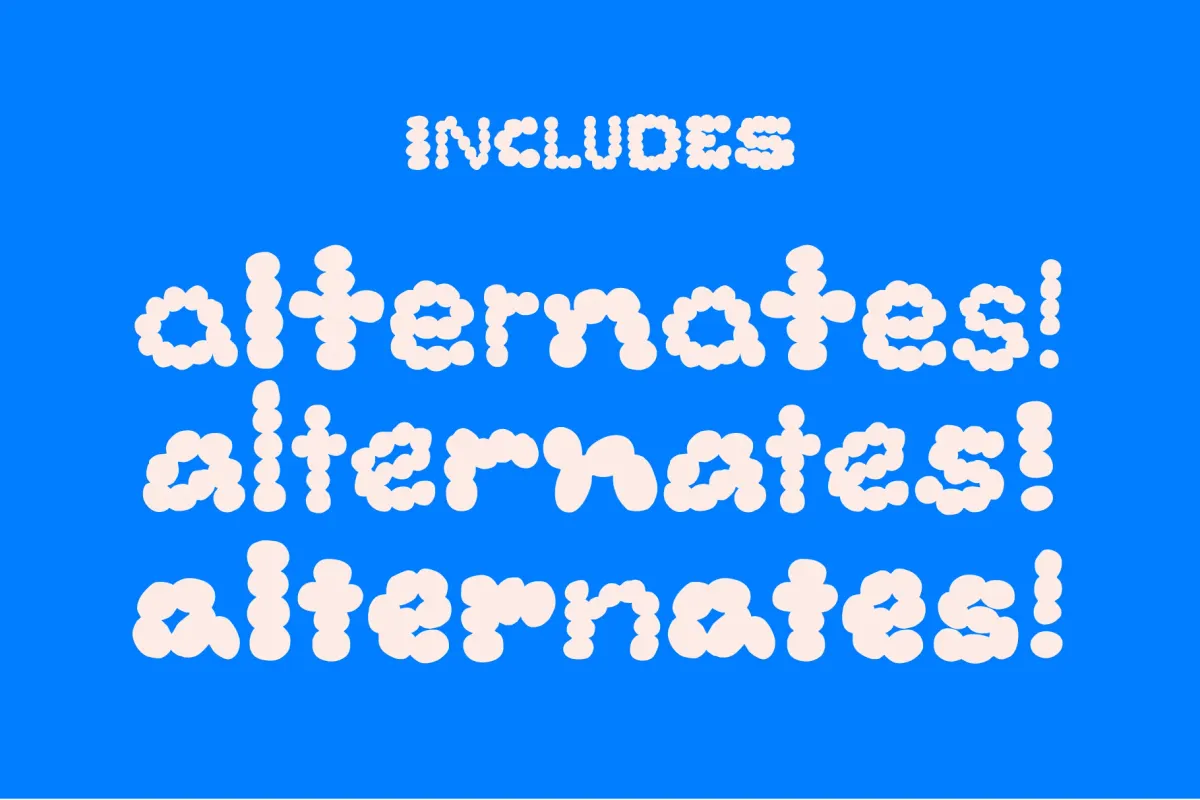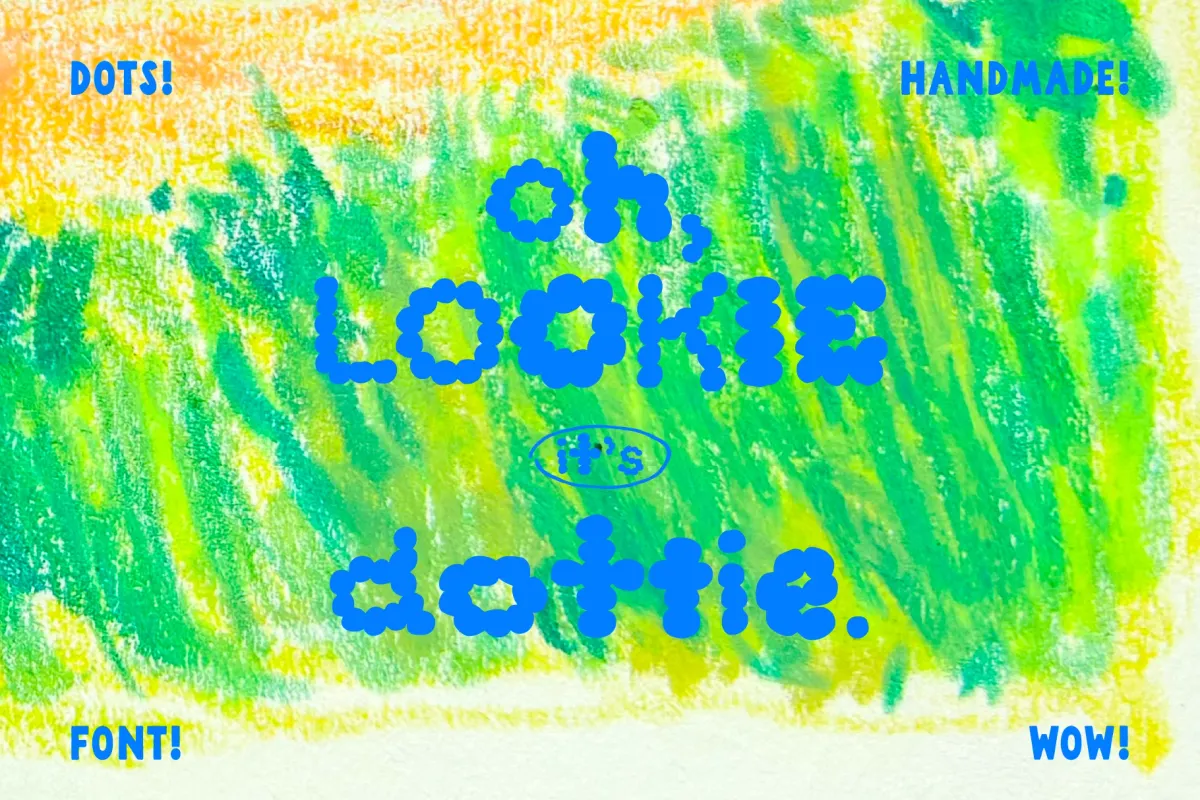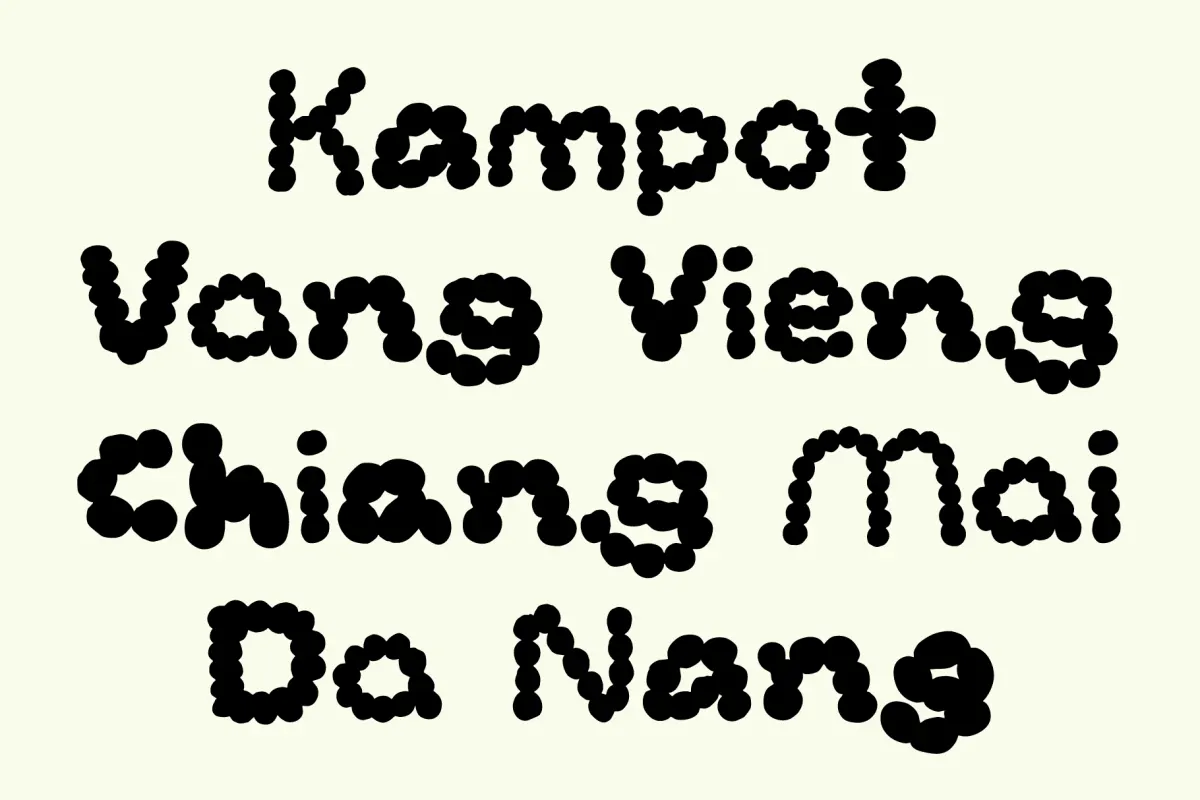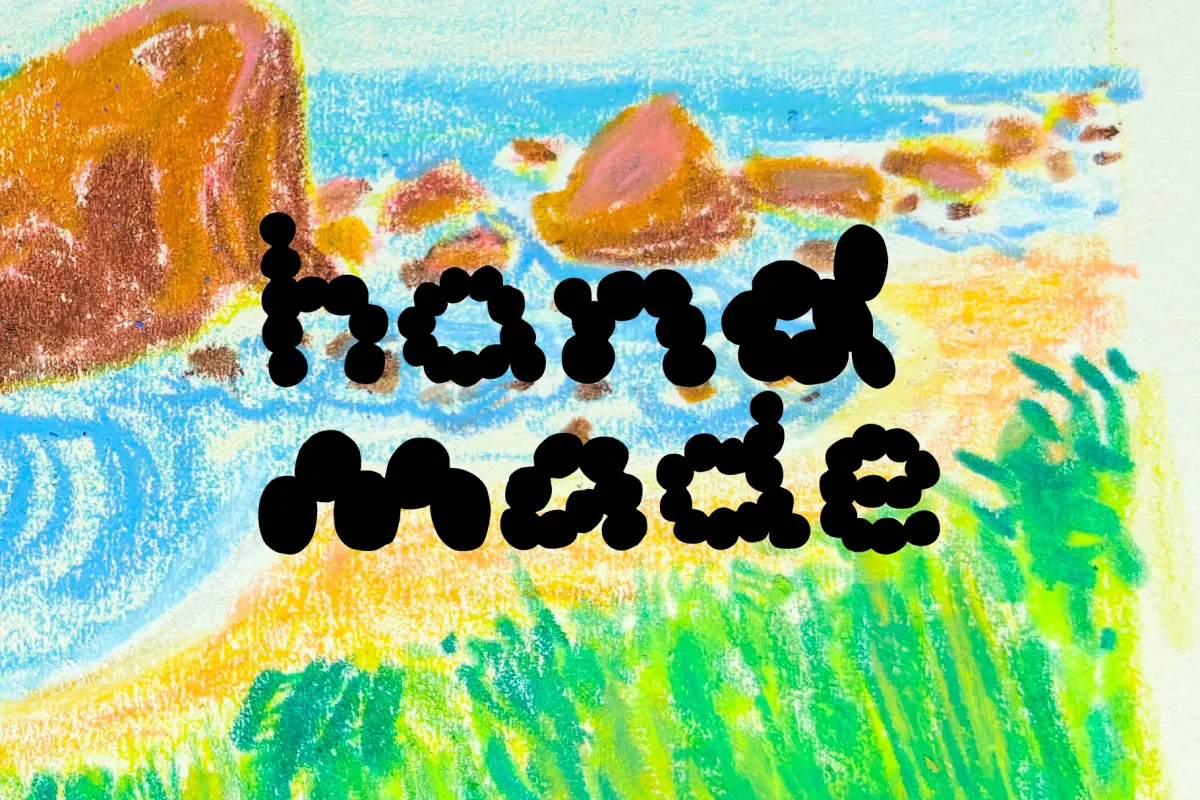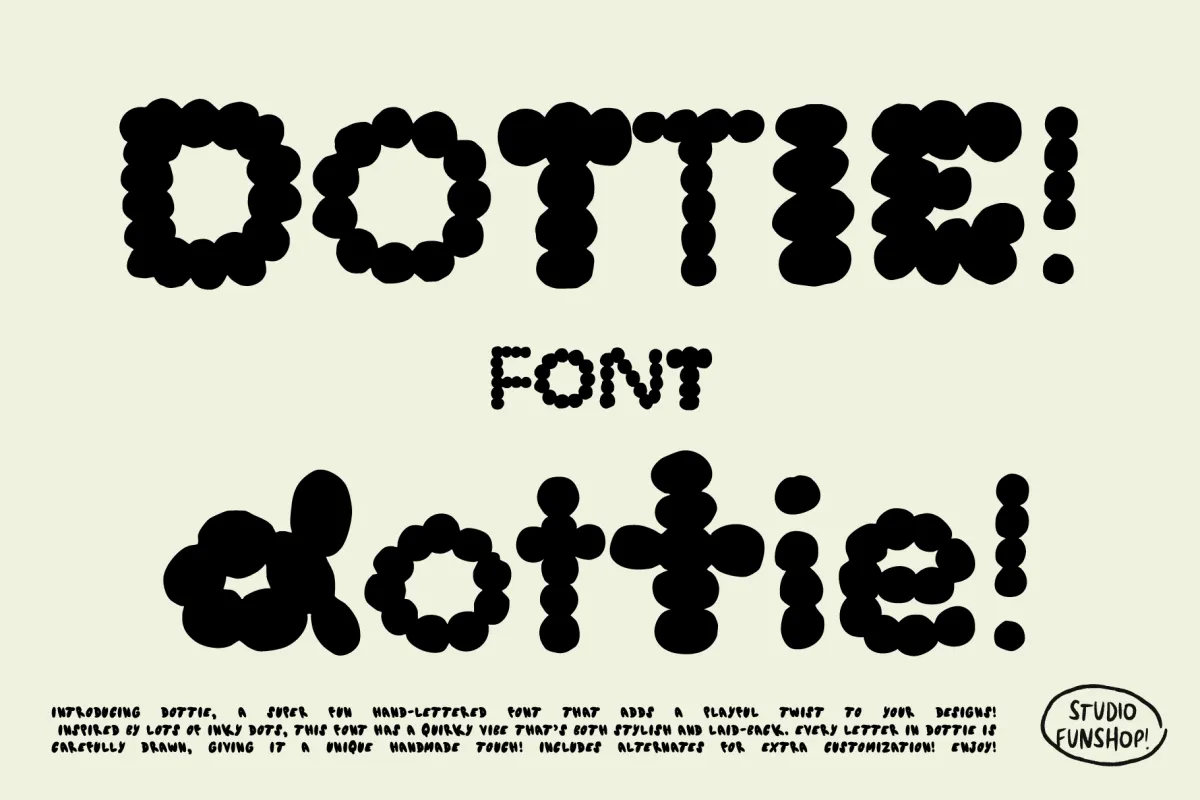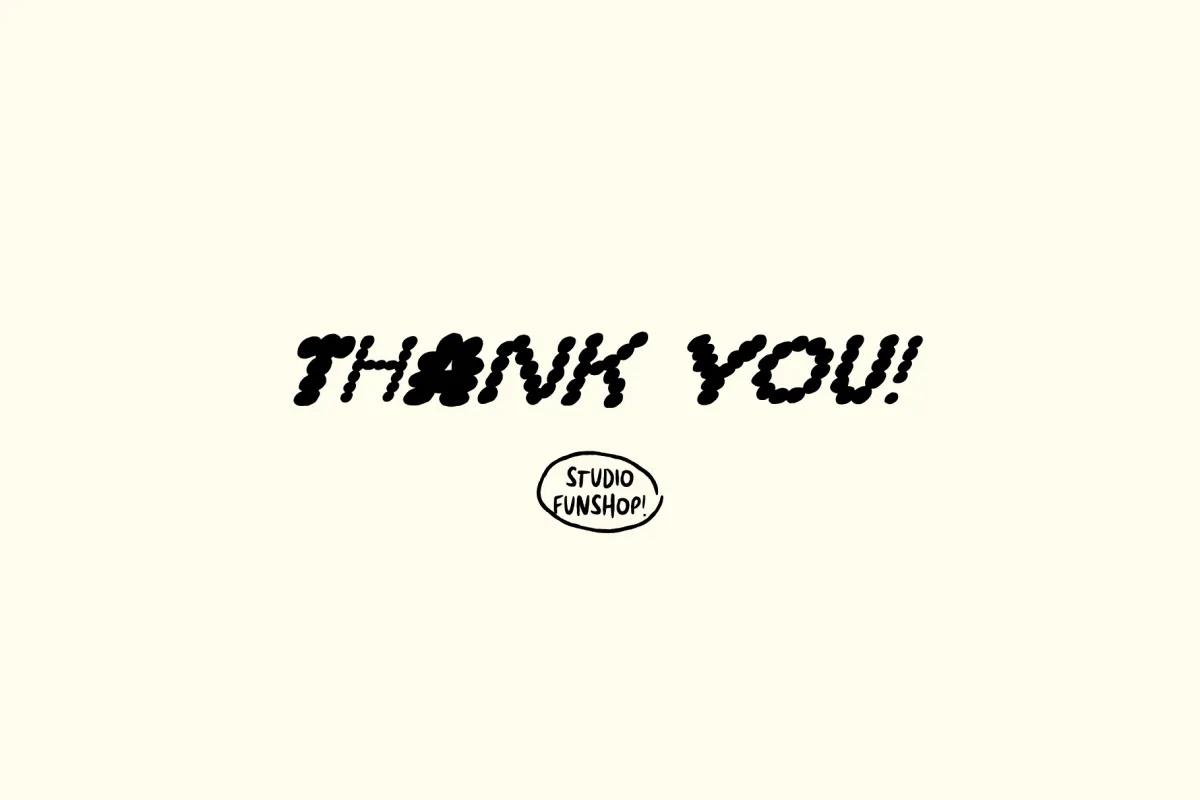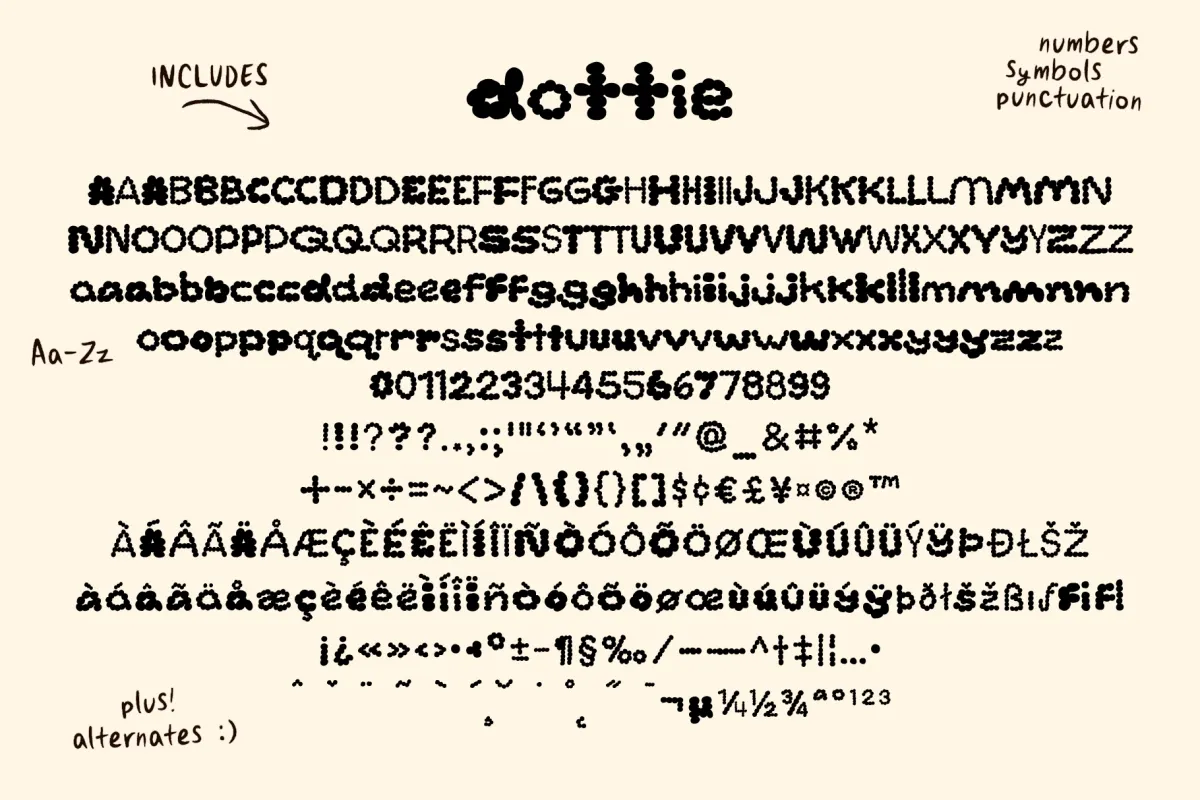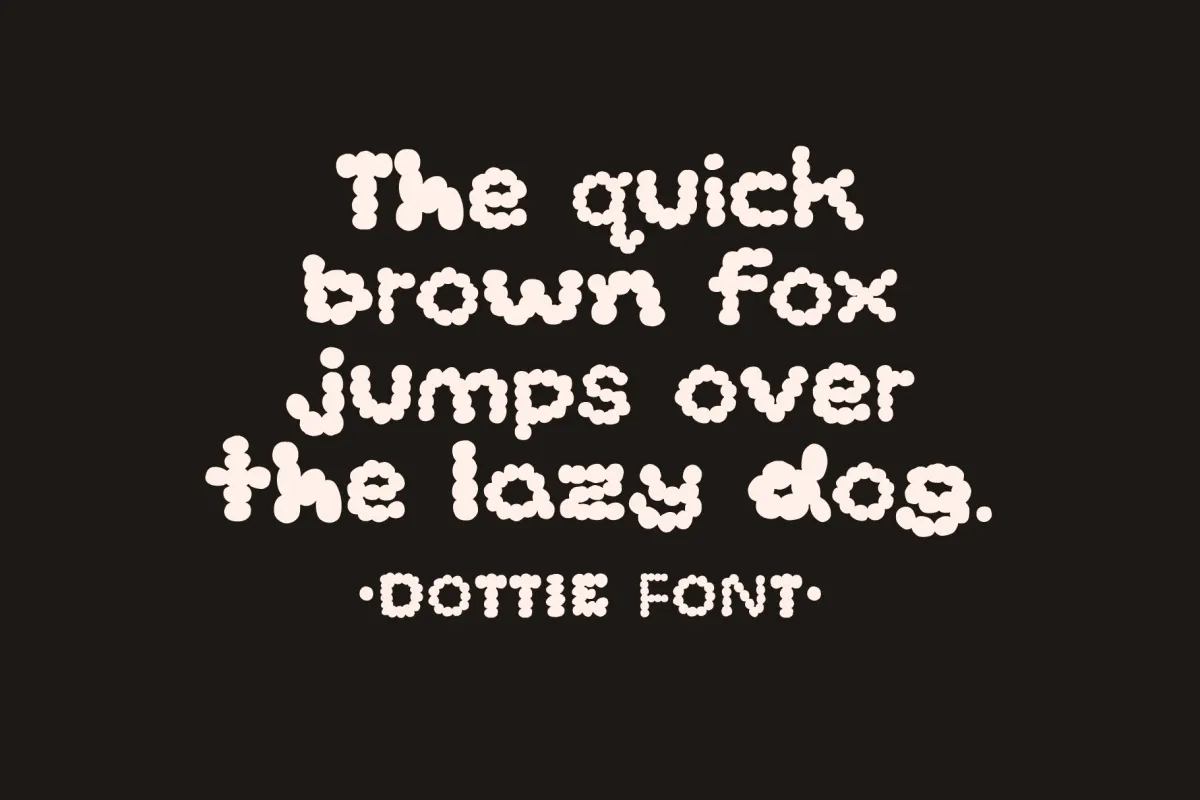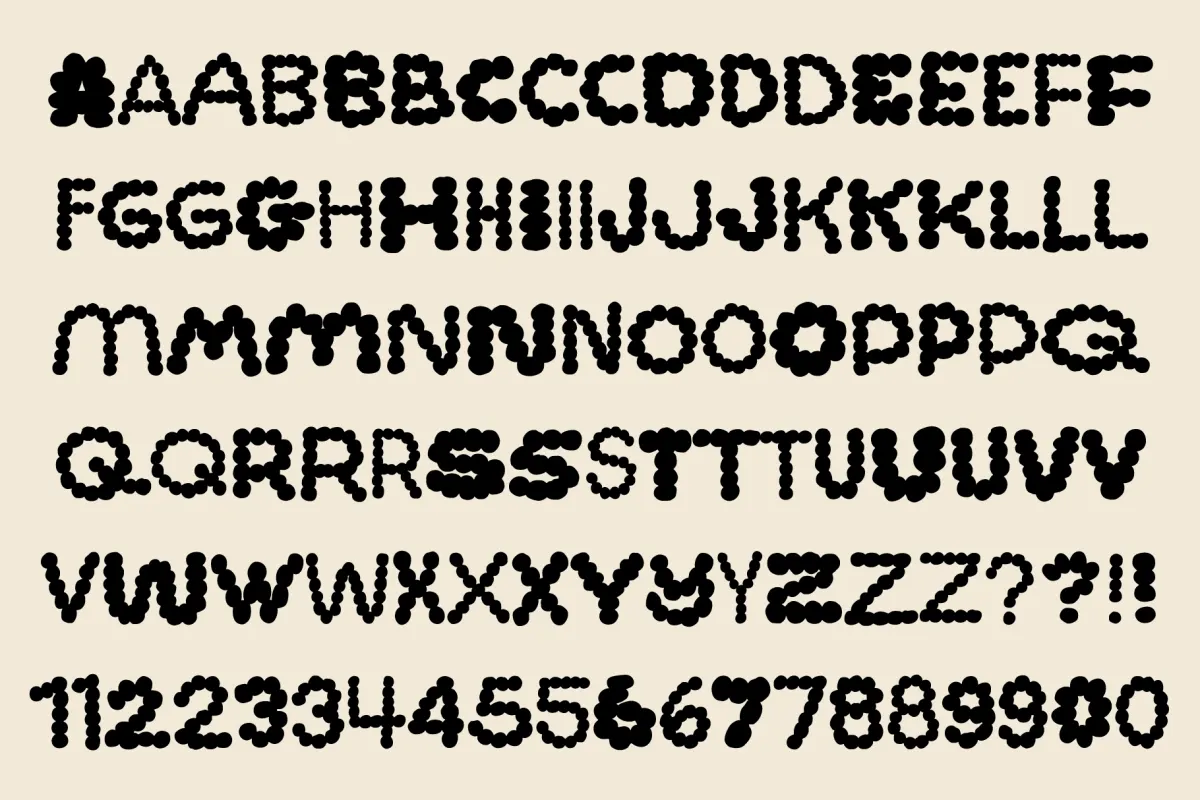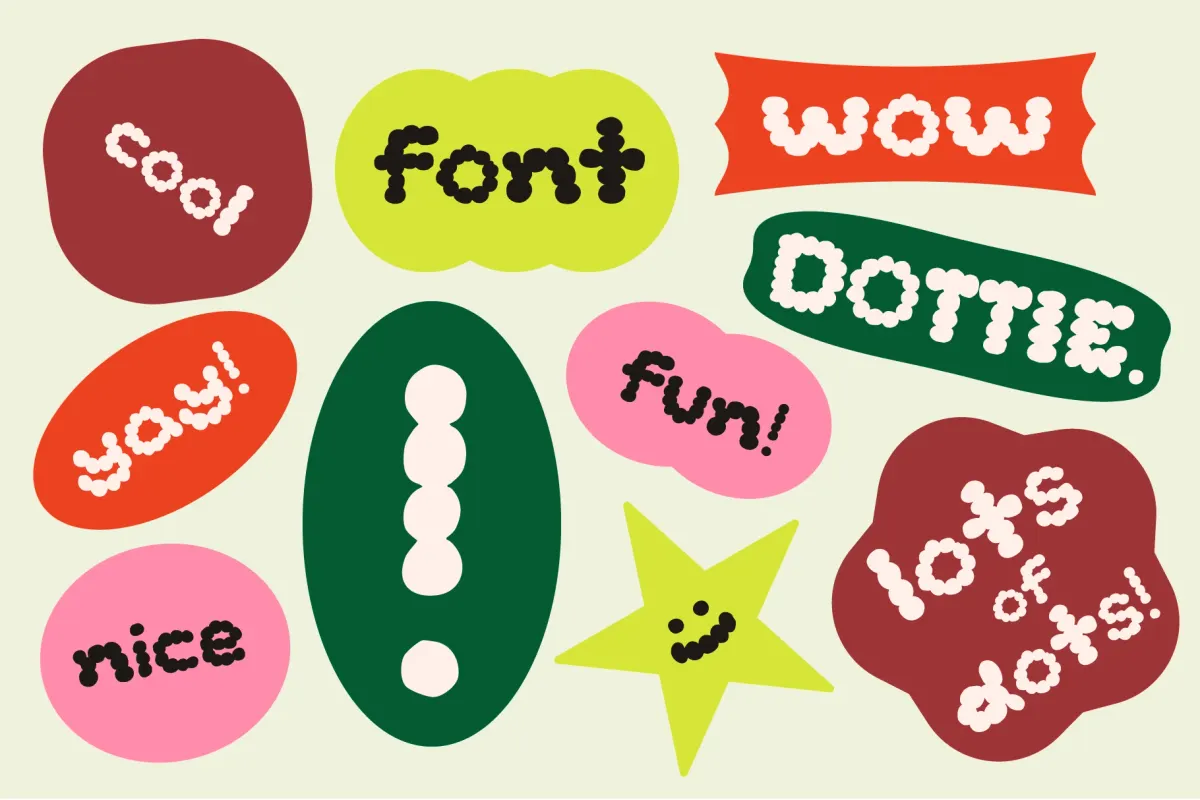
Dottie - Hand-Lettered Dot Font
Dottie bubbles with playful energy, drawing on the look of inky dots, stamped marks, and doodled lettering to create a quirky style. The characters are carefully hand-drawn, so the font keeps a charmingly imperfect texture.
With its rounded dot-built shapes and laid-back rhythm, Dottie brings a fun graphic personality to titles, packaging, posters, and social designs. It feels bold and whimsical, which makes it especially useful for designs that want a crafty, youthful, or offbeat tone.
- Packaging design — snack bags, candy wraps, toy labels, gift boxes, sticker packs.
- Branding and logos — playful shops, kids’ brands, craft studios, party suppliers.
- Poster and flyer design — workshops, pop-ups, markets, school events, creative launches.
- Social content — announcement posts, quote cards, sale graphics, story templates.
- Merchandise — totes, mugs, notebooks, t-shirts, badges, art prints.
- Uppercase and lowercase A–Z;
- Numbers, symbols, and punctuation;
- Alternates for extra customization;
- Some multilingual glyphs.